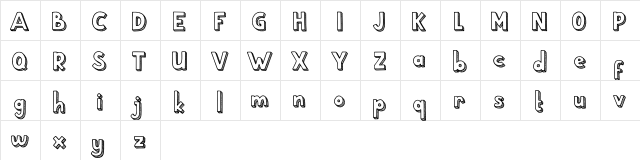
School Holic 5 Font Preview
School Holic 5 School Holic 5
School Holic 5 Font Details
| Style | School Holic 5 |
| Designer | Orenari |
Design Context for School Holic 5 Typeface
School Holic 5 is a composed and adaptable typeface that performs quietly and consistently across a wide range of design contexts.